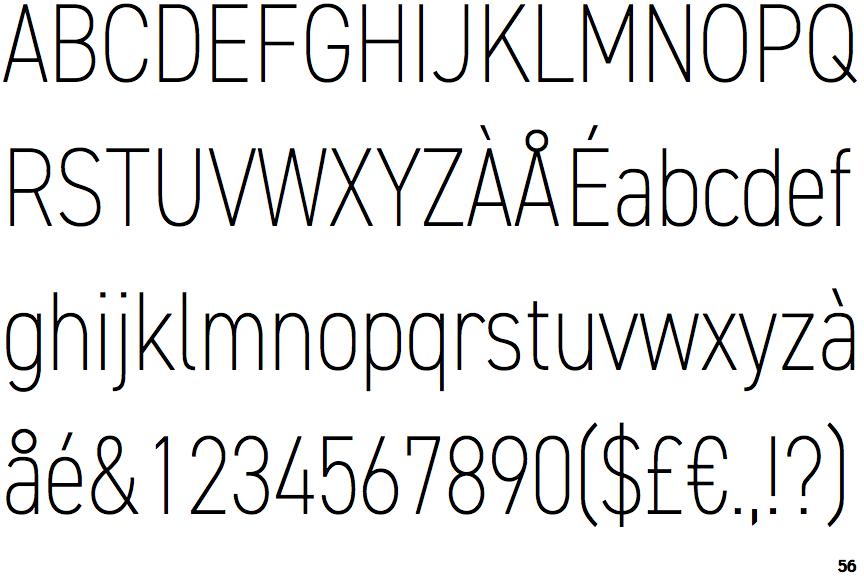
Finding Fonts Similar To Din
What is DIN Font
DIN is an acronym for Deutsches Institut für Normung, which is the German Institute for Standardization. It is a sans-serif typeface that was designed by the German industrial standard organization in the early 20th century. The font was designed to be used in technical and engineering applications. It is a very popular font and is used in many different applications, including web design, print design, and logo design.
Similar Fonts to DIN
If you are looking for a font similar to DIN, there are several great options. One option is Arial, which is a sans-serif font that was designed by Monotype Corporation in 1982. Arial has a very similar look to DIN and is used in many different applications. Another option is Helvetica, which is a sans-serif font that was designed by Max Miedinger in 1957. Helvetica has a similar feel to DIN, but is more modern in its look. Another font similar to DIN is Proxima Nova, which was designed by Mark Simonson in 1994. Proxima Nova has a slightly more modern feel than DIN and is used in many different applications.
Free Alternatives to DIN
If you are looking for a free alternative to DIN, there are a few options. One option is Open Sans, which is a sans-serif font that was designed by Steve Matteson in 2011. Open Sans has a very similar look to DIN and is free to use. Another option is Roboto, which is a sans-serif font that was designed by Christian Robertson in 2011. Roboto has a similar look to DIN, but is more modern in its feel. Finally, there is Lato, which is a sans-serif font that was designed by Łukasz Dziedzic in 2010. Lato has a similar look to DIN, but is more modern in its feel.
The font DIN is an incredibly popular typeface that is used in many different applications. If you are looking for a font similar to DIN, there are several great options, including Arial, Helvetica, Proxima Nova, Open Sans, Roboto, and Lato. All of these fonts have a similar look to DIN, but are more modern in their feel. Whether you are looking for a free alternative or one that you have to purchase, there are plenty of options that are similar to DIN.